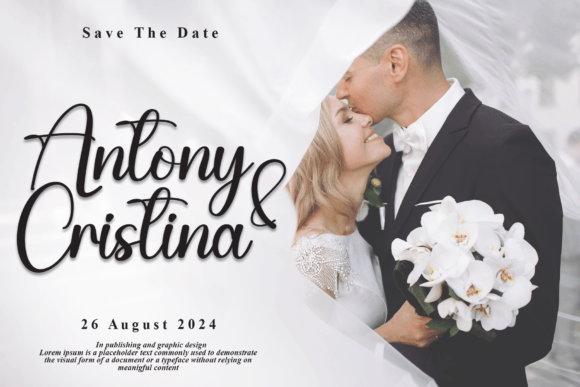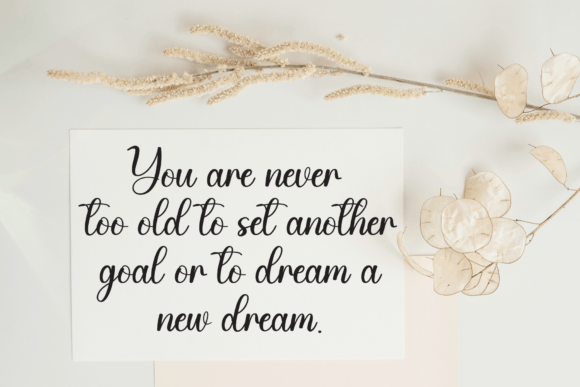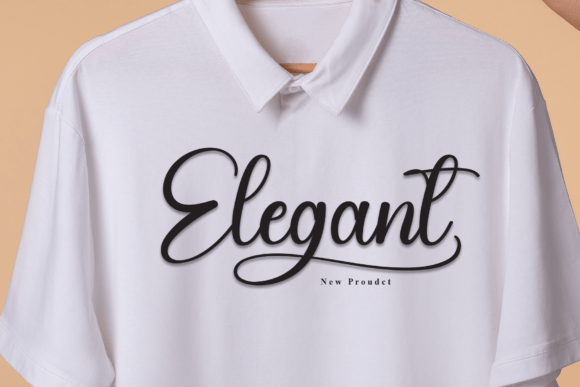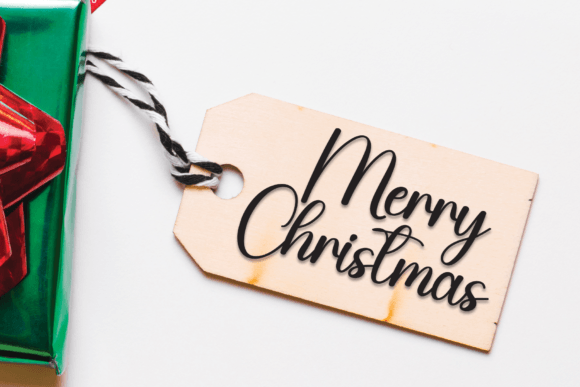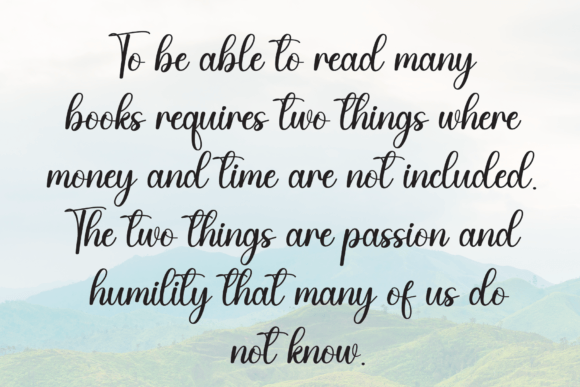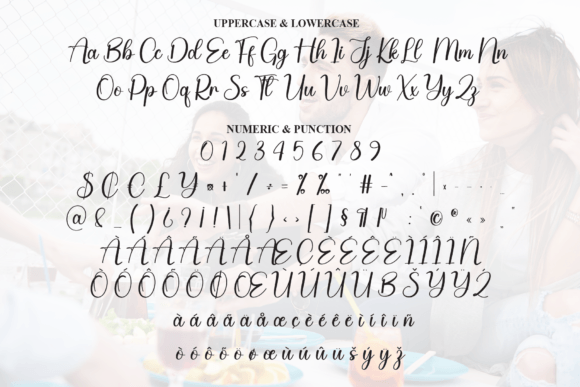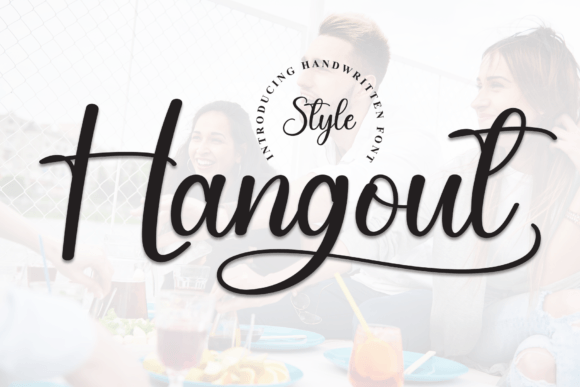
Introducing Hangout Font: The Perfect Choice for a Personal Touch
Are you tired of using the same old fonts for your invitations, notes, and crafts? Look no further than Hangout Font, a fun and casual handwritten font that’s sure to add a personal touch to your text. With its playful style, Hangout Font is perfect for anyone looking to add a friendly feel to their projects.
What is Hangout Font?
Hangout Font is a unique and charming handwritten font that’s designed to make your text stand out. Its casual and relaxed style makes it perfect for a variety of projects, from invitations and greeting cards to notes and crafts. Whether you’re a designer, crafter, or simply someone who loves to add a personal touch to your work, Hangout Font is the perfect choice.
Key Features of Hangout Font
• Playful Style: Hangout Font has a playful and fun style that’s sure to add a smile to your reader’s face.
• Handwritten Look: With its handwritten look, Hangout Font gives your text a personal and friendly feel.
• Versatile: Hangout Font is perfect for a variety of projects, from formal invitations to casual notes.
• Easy to Read: Despite its playful style, Hangout Font is easy to read and understand, making it perfect for both digital and print projects.
Uses for Hangout Font
Hangout Font is perfect for a wide range of projects, including:
• Invitations: Whether you’re planning a party, wedding, or baby shower, Hangout Font is the perfect choice for your invitations.
• Notes and Letters: Add a personal touch to your notes and letters with Hangout Font.
• Crafts: Hangout Font is perfect for crafters who want to add a personal touch to their projects, from scrapbooking to card making.
• Digital Projects: Hangout Font is also perfect for digital projects, such as social media graphics, blog posts, and email newsletters.
Why Choose Hangout Font?
There are many reasons to choose Hangout Font for your next project. Here are just a few:
• Unique Style: Hangout Font has a unique and charming style that’s sure to make your text stand out.
• Versatile: Hangout Font is perfect for a wide range of projects, from formal to casual.
• High-Quality: Hangout Font is a high-quality font that’s designed to look great on both digital and print projects.
Tips for Using Hangout Font
Here are a few tips for using Hangout Font in your projects:
• Use it for Headings: Hangout Font is perfect for headings and titles, where its playful style can really shine.
• Mix it with Other Fonts: Hangout Font can be paired with other fonts to create a unique and interesting look.
• Experiment with Colors: Hangout Font looks great in a variety of colors, so don’t be afraid to experiment and find the perfect color for your project.
• Use it for Emphasis: Hangout Font can be used to add emphasis to certain words or phrases in your text.
Hangout Font is a fun and casual handwritten font that’s perfect for adding a personal touch to your text. With its playful style and versatile design, Hangout Font is perfect for a wide range of projects, from invitations and notes to crafts and digital projects. Whether you’re a designer, crafter, or simply someone who loves to add a personal touch to your work, Hangout Font is the perfect choice.